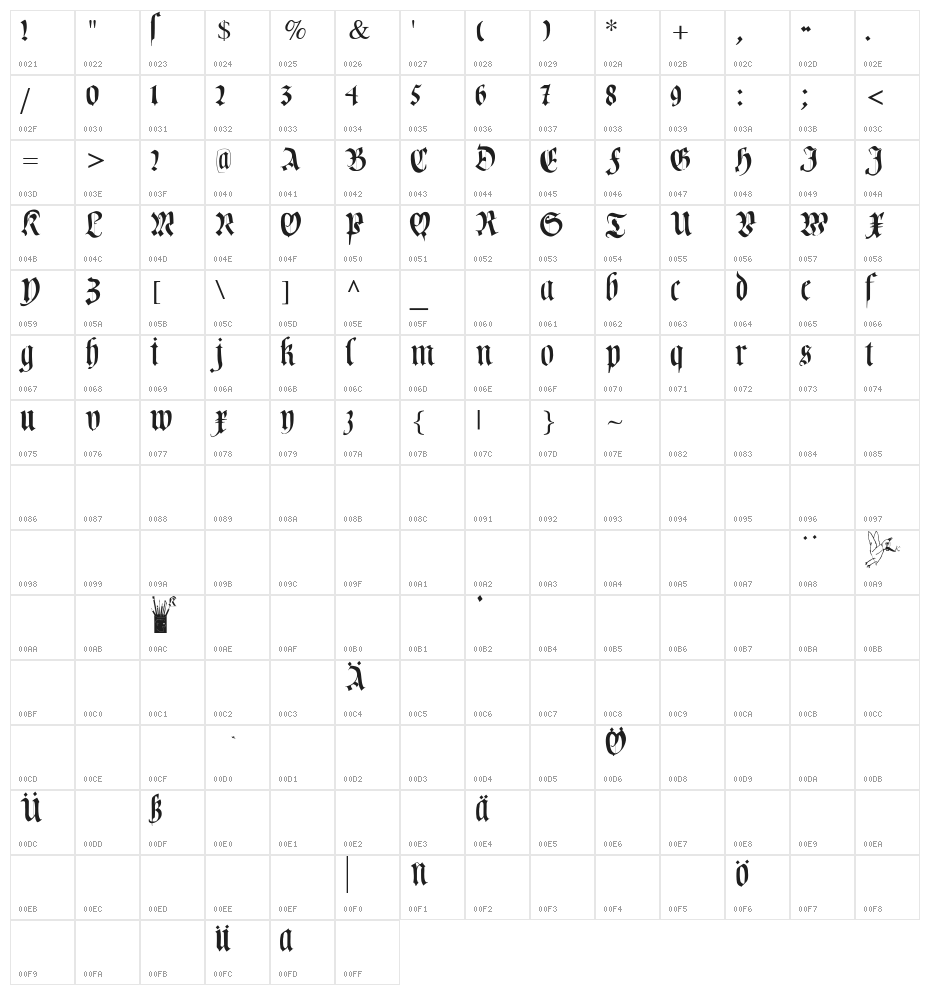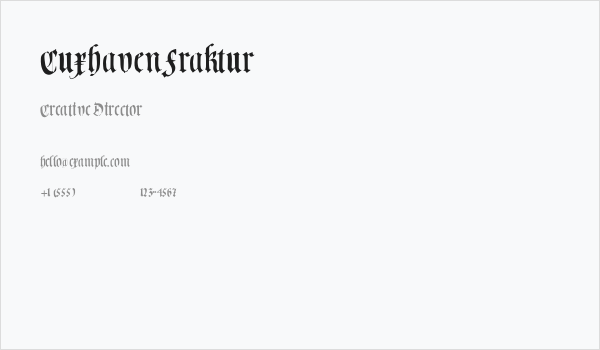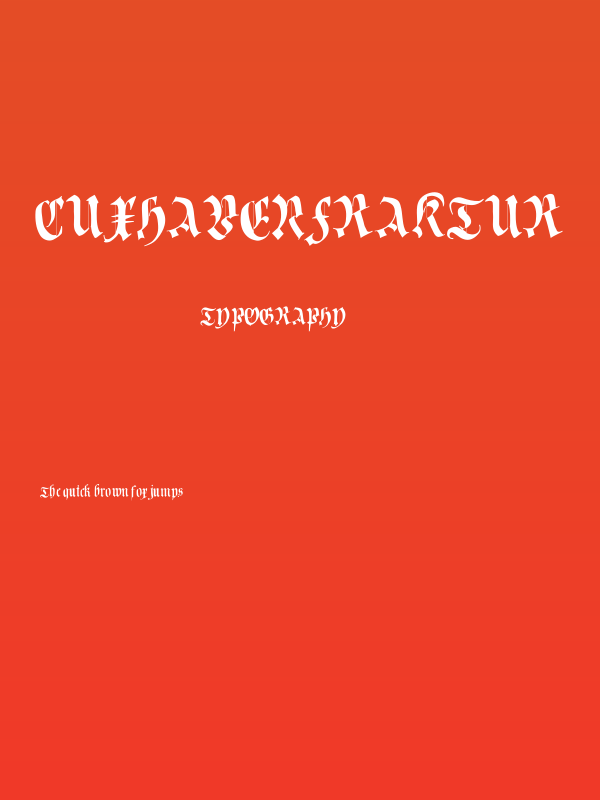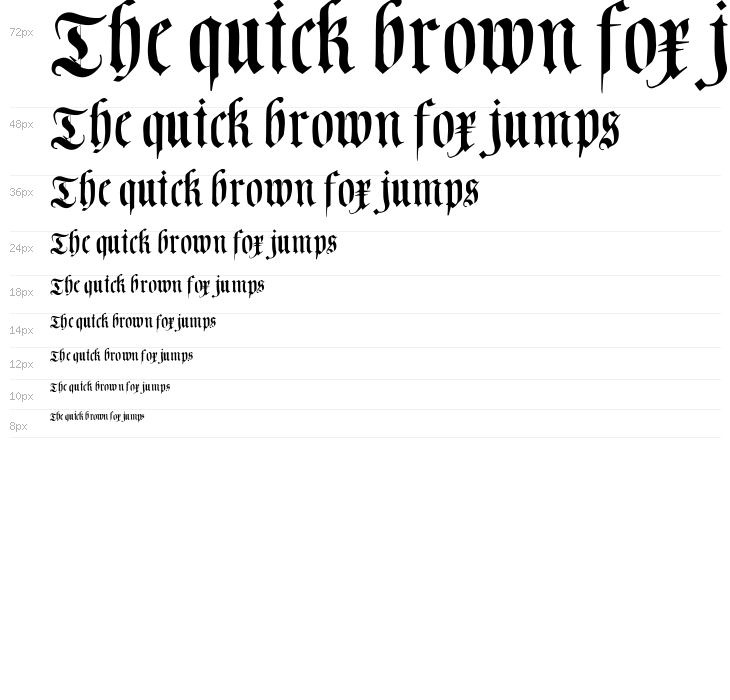
CuxhavenFraktur Font
CuxhavenFraktur Description
This font features a traditional Blackletter style, characterized by its ornate and intricate letterforms. The uppercase letters exhibit sharp, angular lines with dramatic flourishes, while the lowercase letters maintain a consistent, flowing structure. The numbers and special characters are equally elaborate, maintaining the overall aesthetic. The font's historical and gothic appearance makes it suitable for projects that require a touch of antiquity or formality. Its detailed design is reminiscent of medieval manuscripts and old-world typography.
Overall StyleVintage
Proposed ProjectsIdeal for historical documents, certificates, wedding invitations, book covers, and branding that requires a vintage or gothic touch.